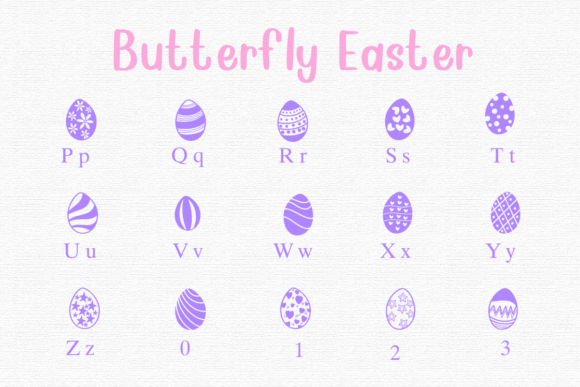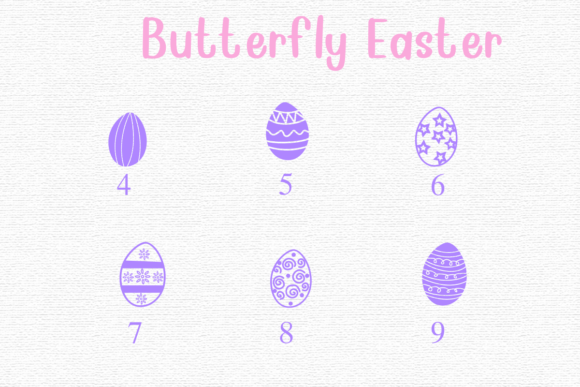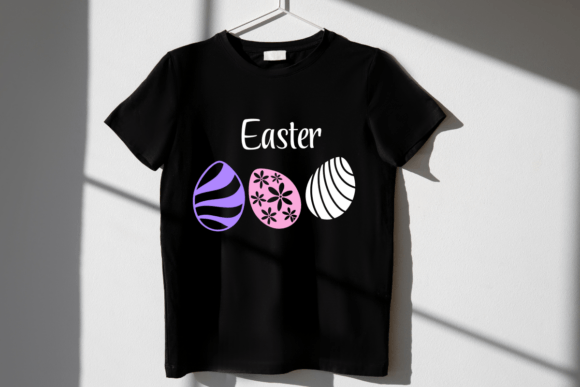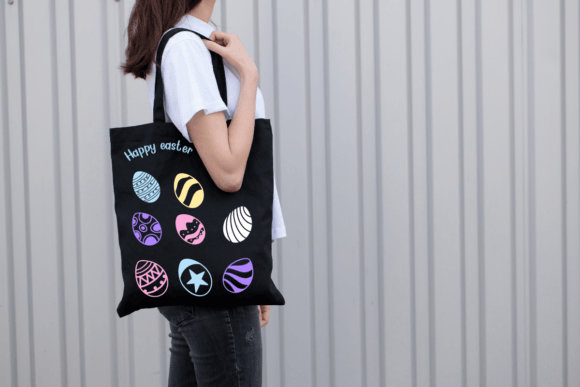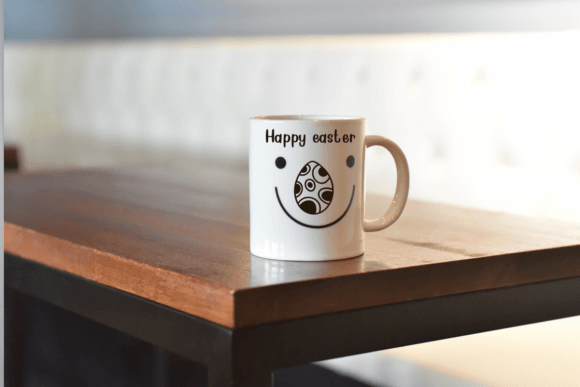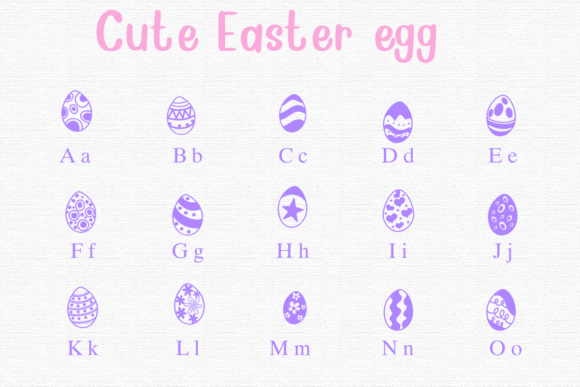
The Cute Easter Egg Font: A Fun and Creative Addition to Your Design Projects
I still remember the time I was working on a wedding invitation project for a client who wanted a whimsical and playful theme. I had spent hours browsing through font libraries, but nothing seemed quite right. That was when I stumbled upon the Cute Easter Egg font, and it instantly brought a smile to my face. The adorable Easter egg designs and cute theme were exactly what I needed to bring my project to life. In this article, I’ll share my experience with this delightful dingbats font and show you how to make the most of it in your creative projects.
An Honest Review of Cute Easter Egg Font
- ✨ The Cute Easter Egg font is perfect for Easter-themed projects, but its versatility makes it suitable for a wide range of creative endeavors, from wedding invitations to DIY crafts and decorations.
- ✅ The font comes with a variety of cute Easter egg designs, including eggs with bows, flowers, and other embellishments.
- ✅ The font is easy to use and pairs well with a range of other fonts, making it a great addition to your design toolkit.
While the Cute Easter Egg font is a delightful addition to any design project, there are a few things to keep in mind:
- ⚠️ The font is a dingbats font, which means it’s primarily made up of symbols and icons rather than letters and numbers.
- 🤔 Some of the Easter egg designs can be quite intricate, which may make them difficult to read or use in certain contexts.
The Backstory of Cute Easter Egg Font
The Cute Easter Egg font was designed by a talented font designer who wanted to create a fun and playful font for Easter-themed projects. The designer was inspired by the joy and whimsy of Easter and created a font that would bring a smile to people’s faces. The font has since become a popular choice for designers and crafters looking to add a touch of Easter magic to their projects.